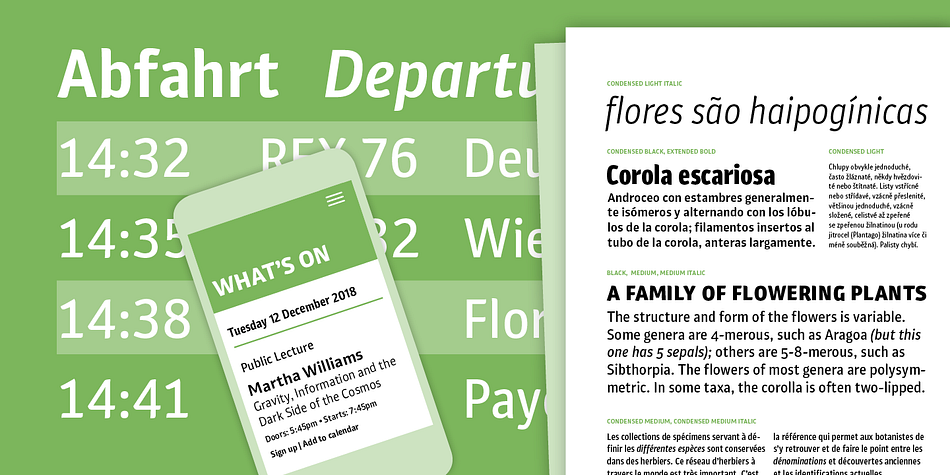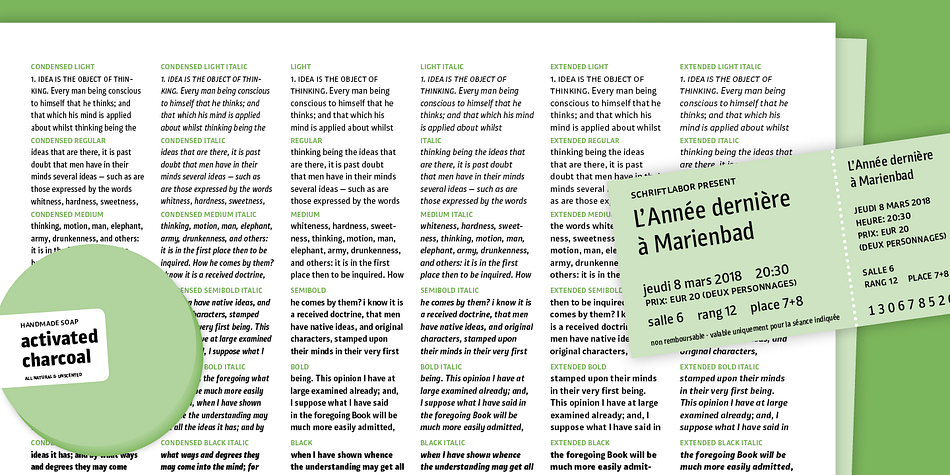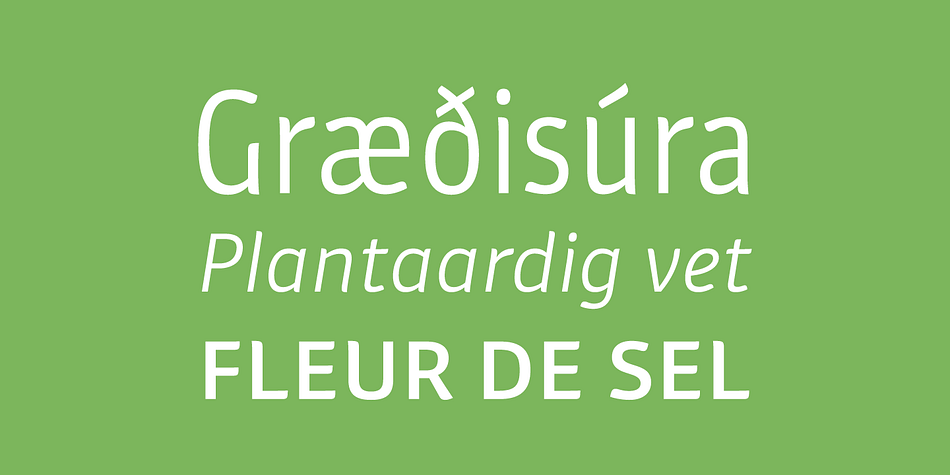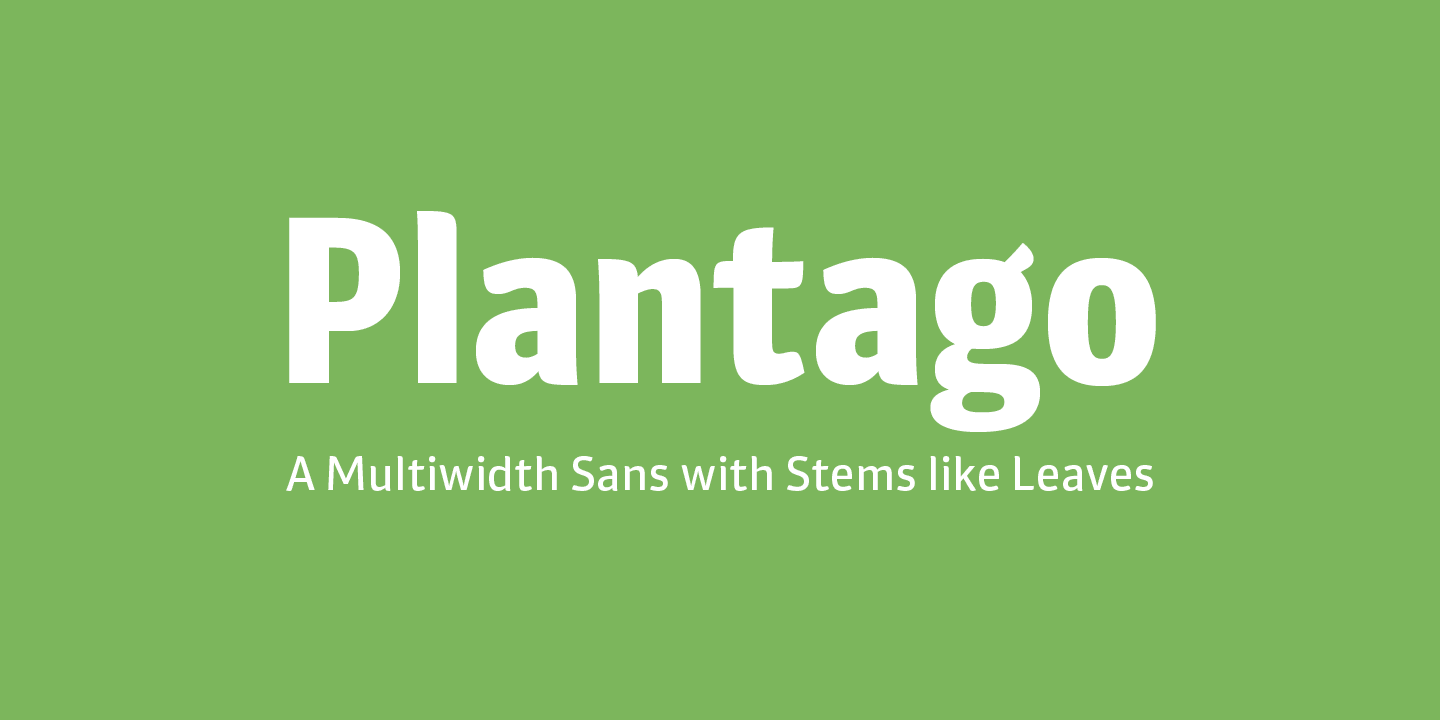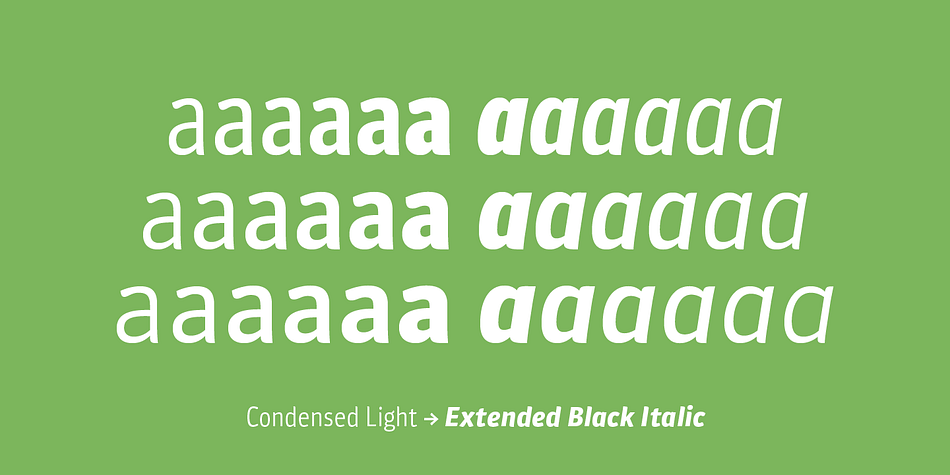
, Plantago is a sans serif font family. This typeface has thirty-six styles and was published by Schriftlabor.
Viktor Solt-Bittner drew logo sketches for an insurance company. Luckily for Schriftlabor, they rejected the design, and he turned the sketches into a font family. Years later, Plantago was expanded, developed and completed by Schriftlabor’s type directors Franziska Hubmann and Lisa Schultz.
Plantago shows delicate leaf-like stroke endings and subtle curvings and offers condensed and wide variants. Typeset in 6 weights from Light to Black, 3 widths from Condensed to Extended, both upright and italic, totaling in no less than 36 styles.